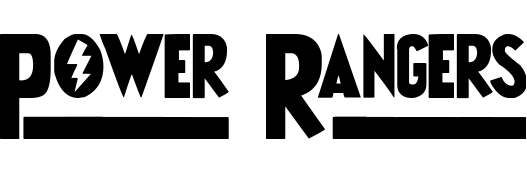
Power Rangers Font
ActionPower Rangers is a long-running American entertainment and merchandising franchise built around a live-action superhero television series the Mighty Morphin Power Rangers.
In the logo, the Power Rangers text is arranged in an arched 3D style. This font is very similar to Machine Bold, which is a commercial font and you can learn more about it here.